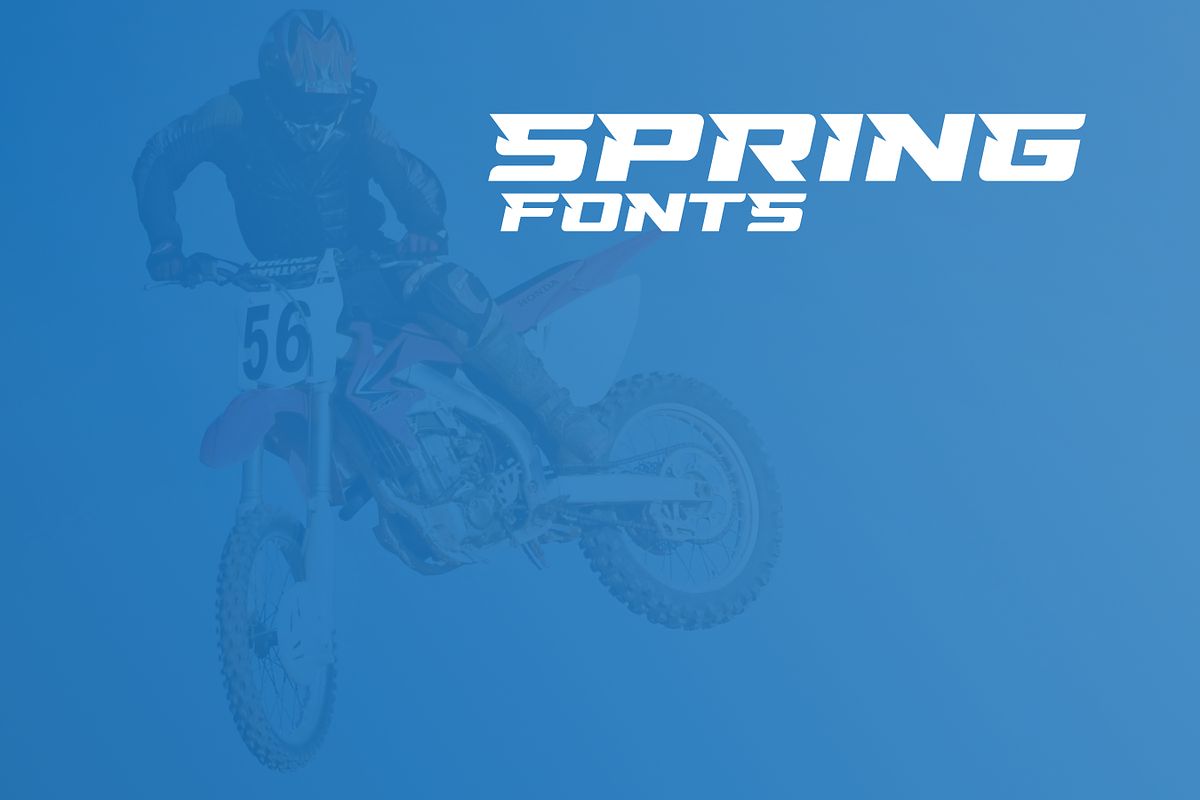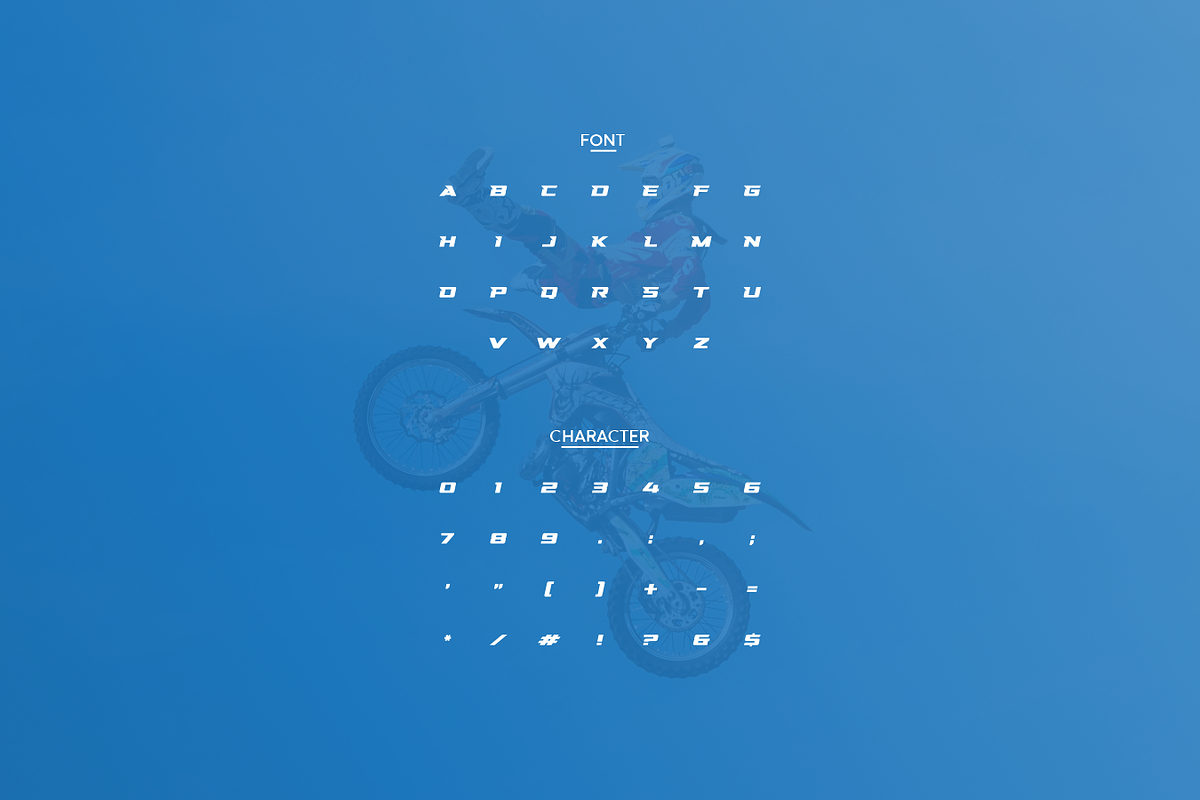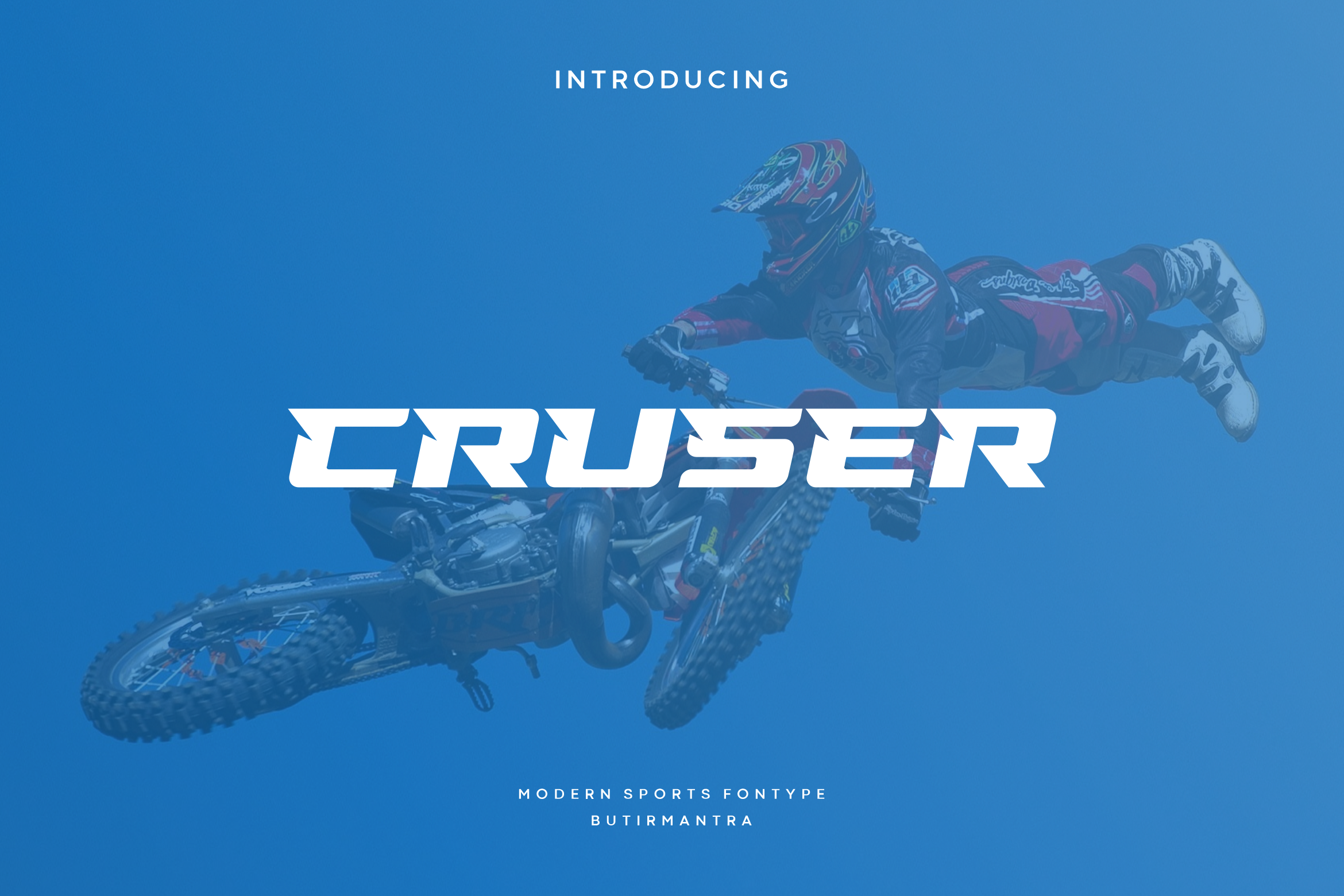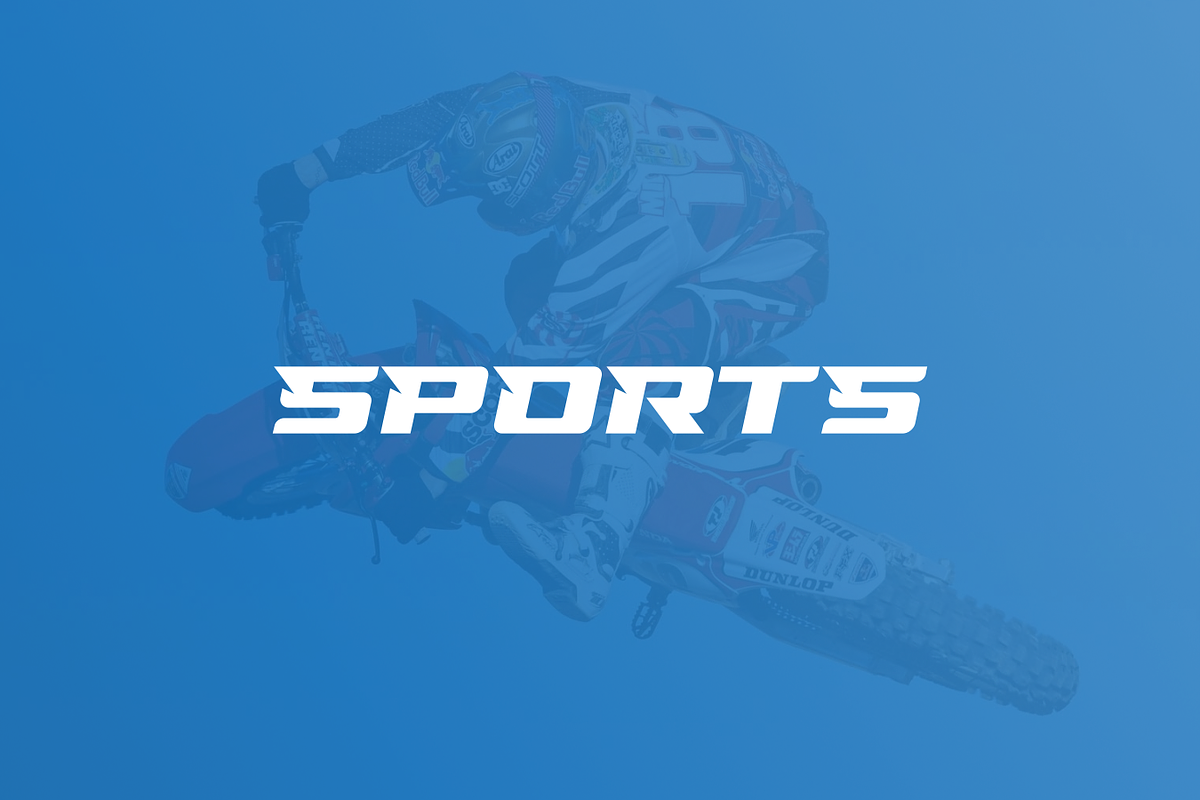
Cruser - Modern Sport Typeface
Cruser is awesome sports font with wide italic fonts, modern cutouts, and dynamic slant. Ideal for fast car racing sports titles, running matches, cycling, automotive, game, logos and monograms or other modern dynamic text. Cruser compare favorably with legibility and size, creating the effect of power and speed. Designed as a fast and dynamic font, but with a slightly different font design, check it out and grab it right away.